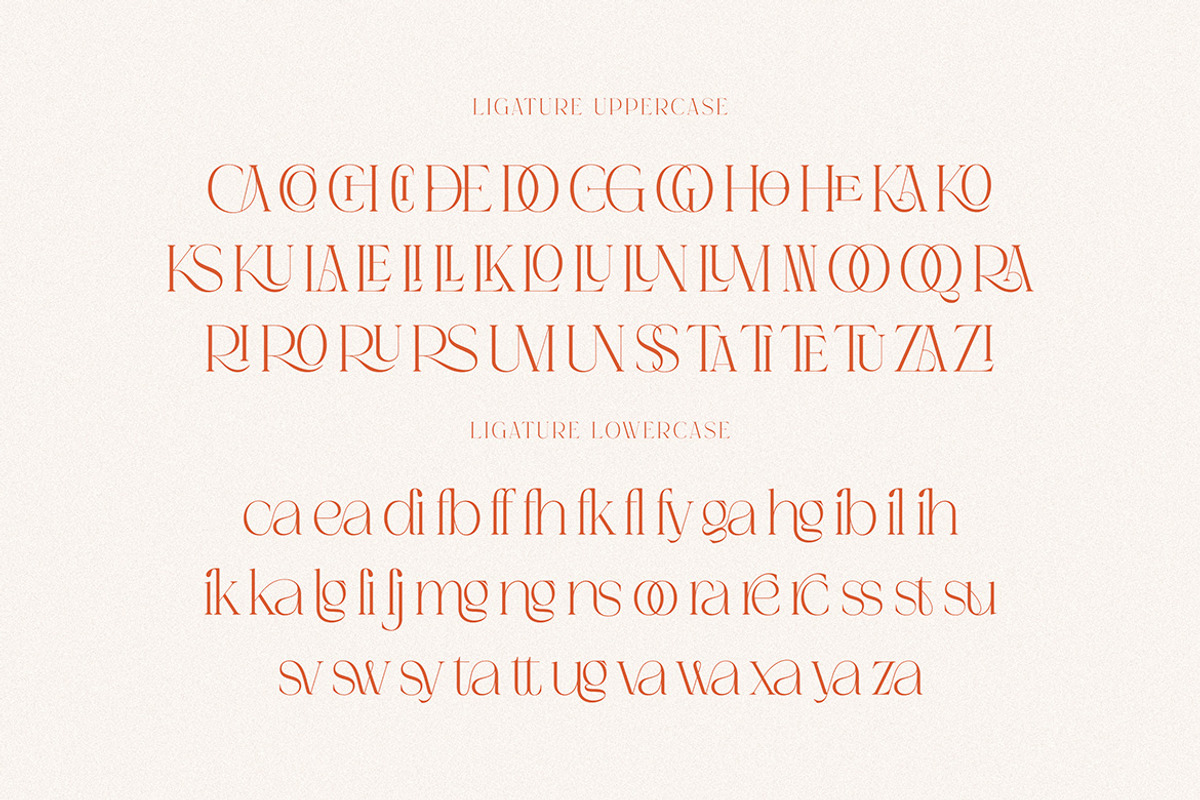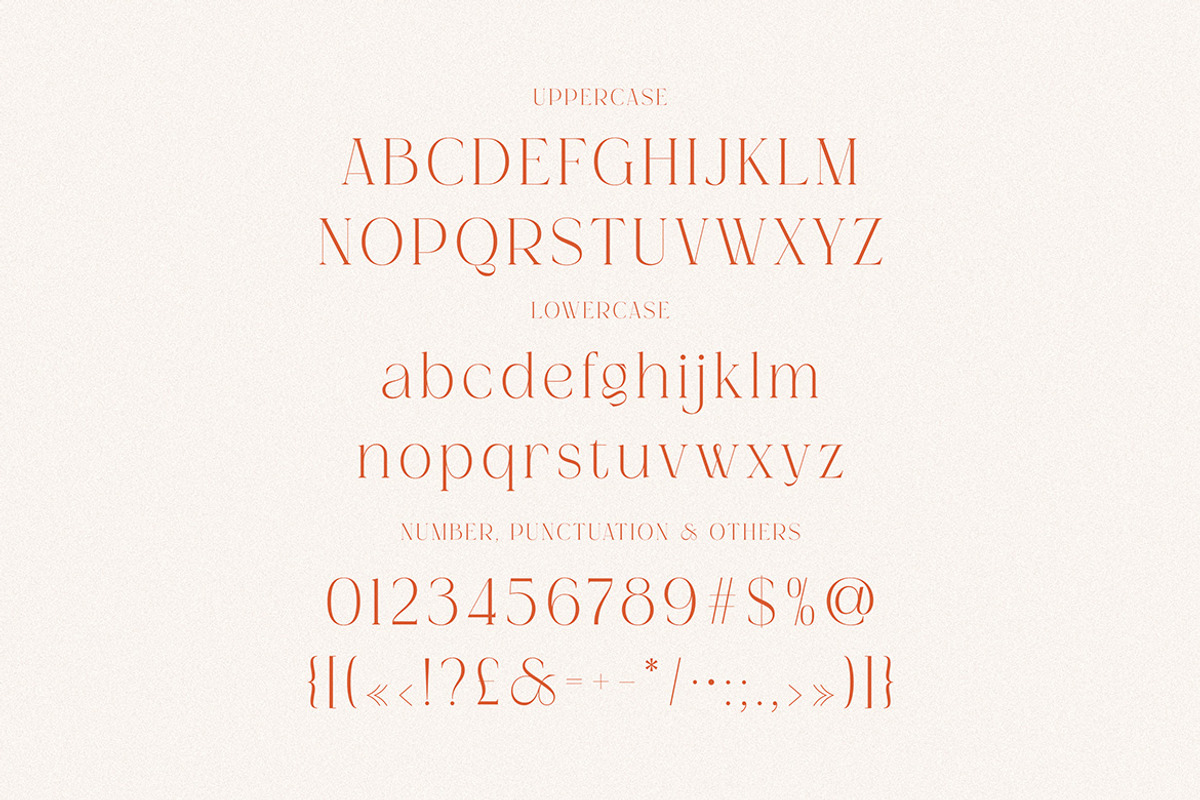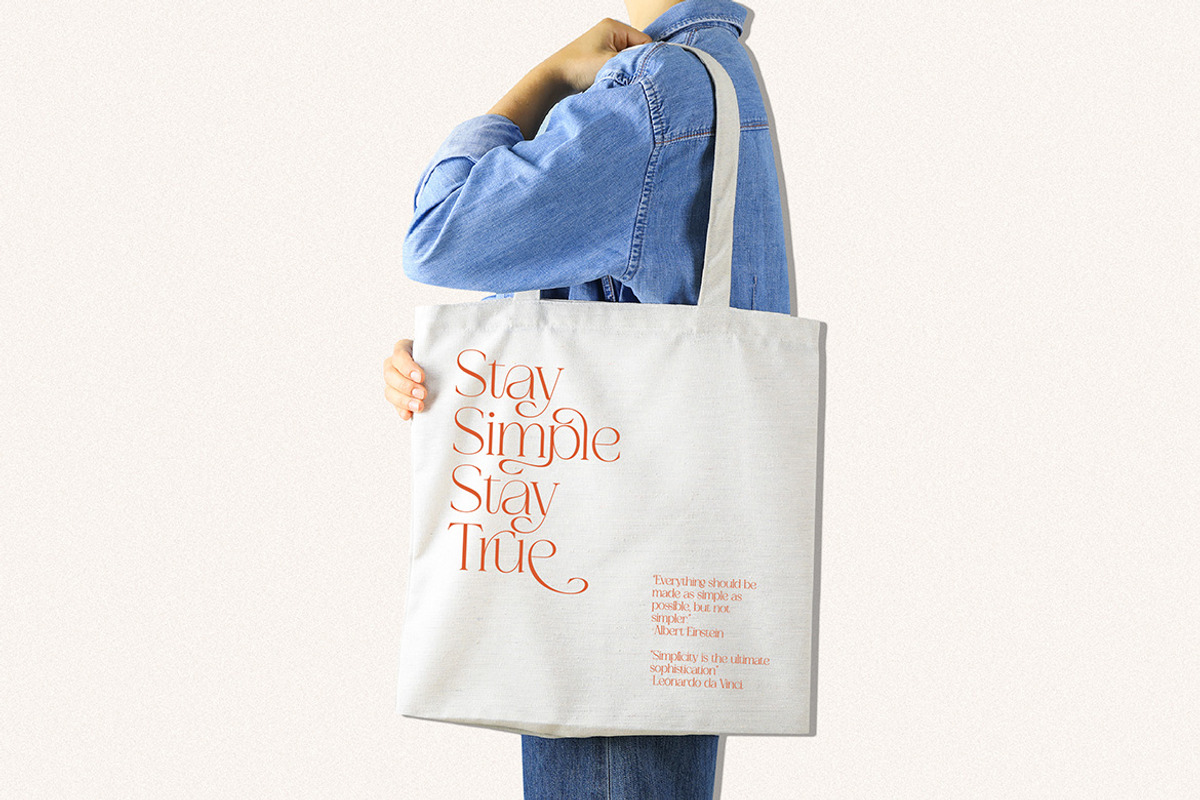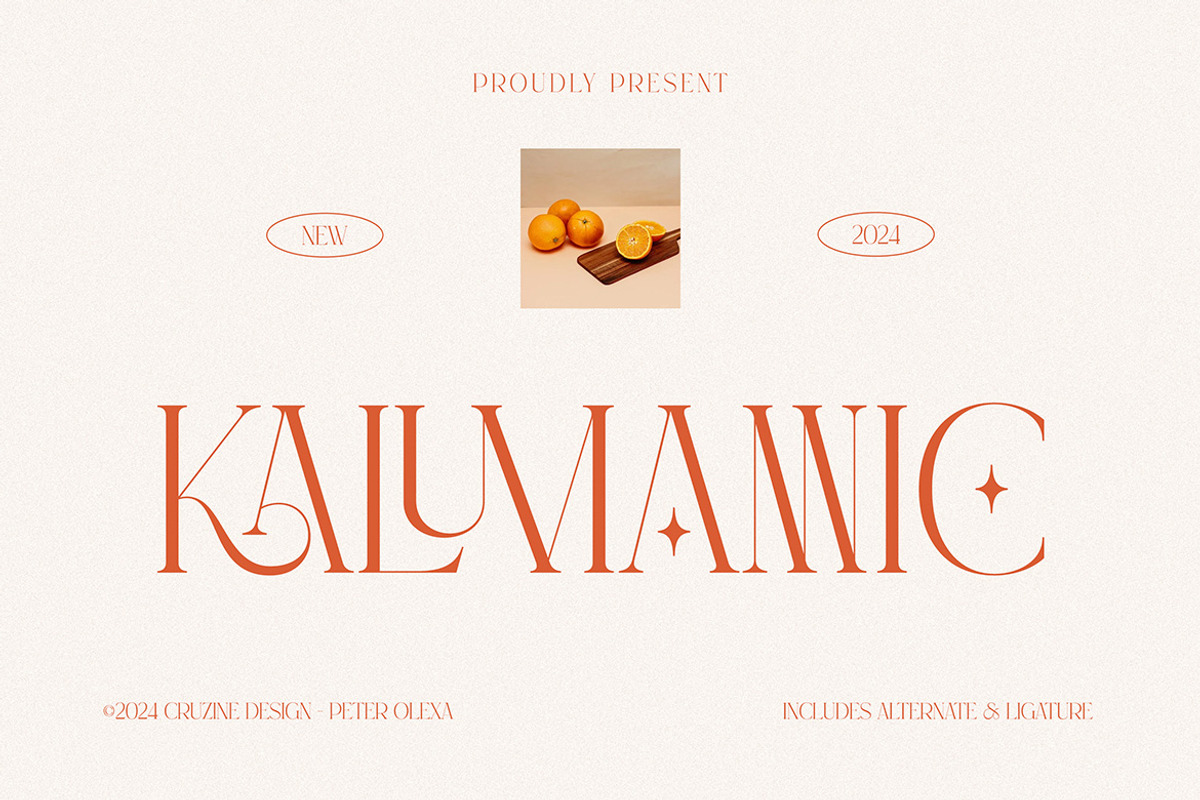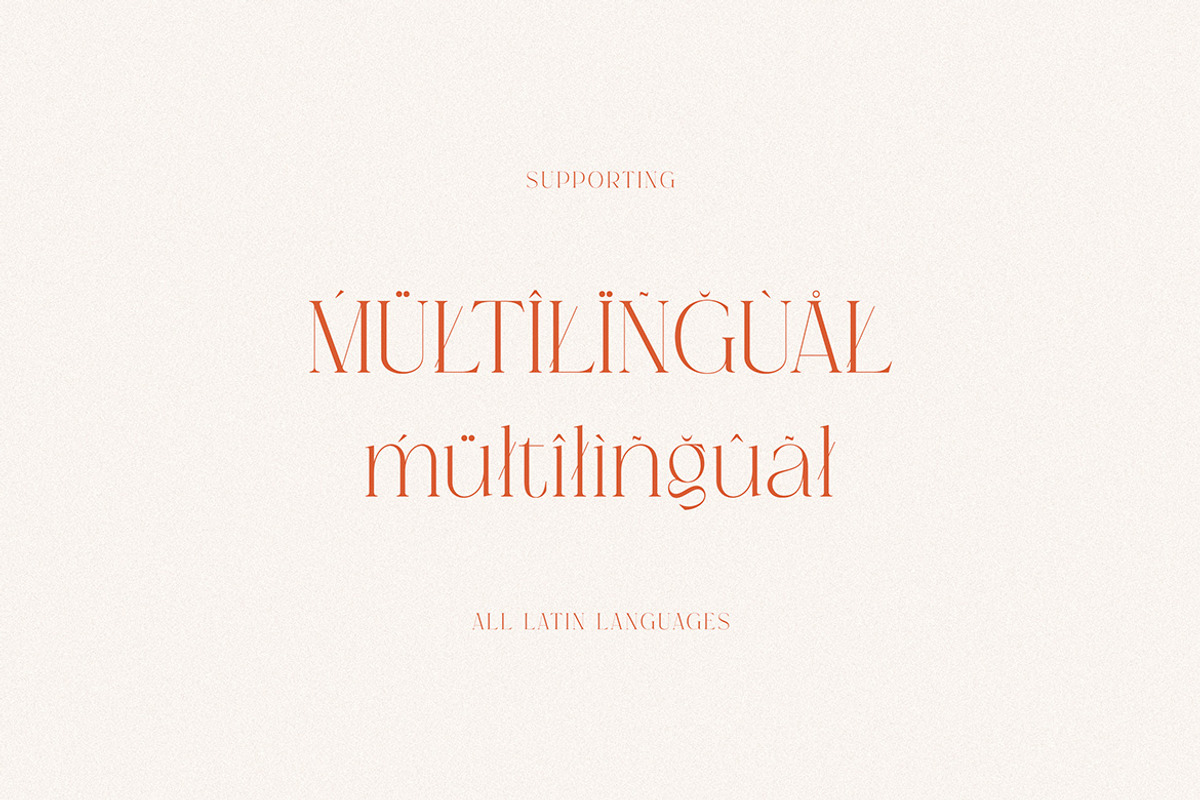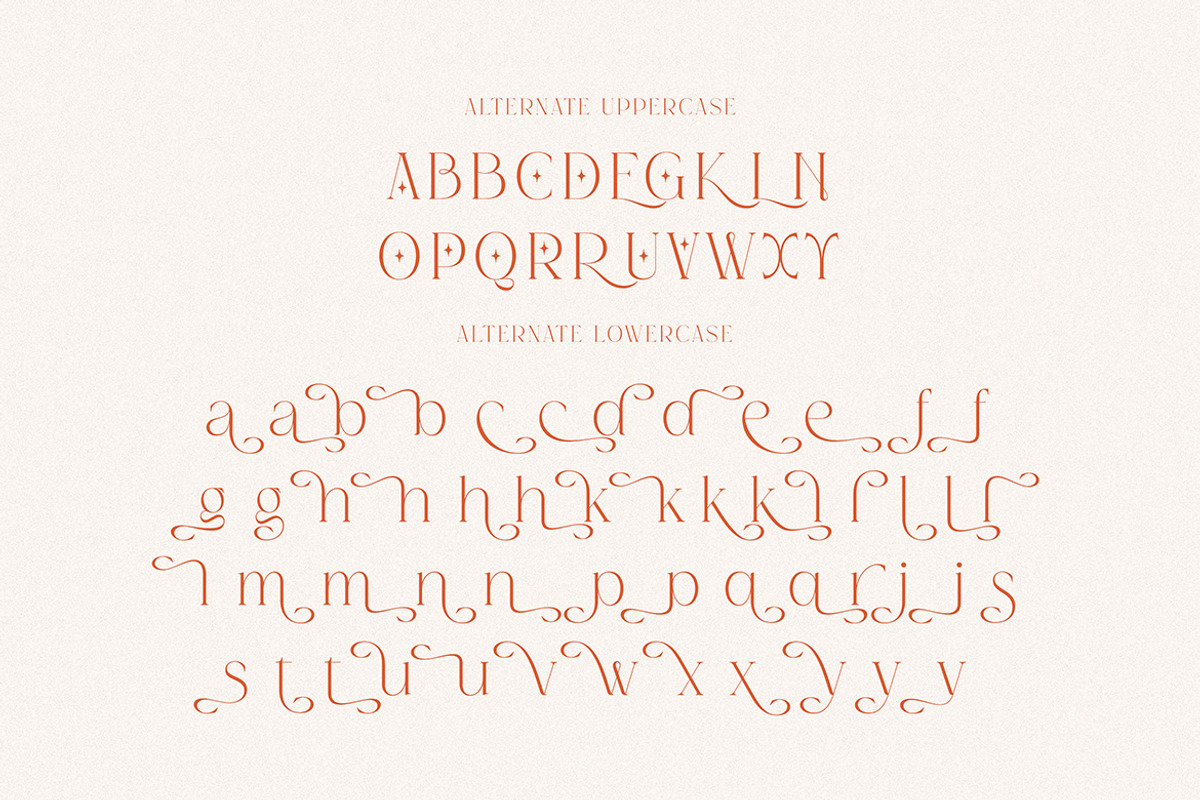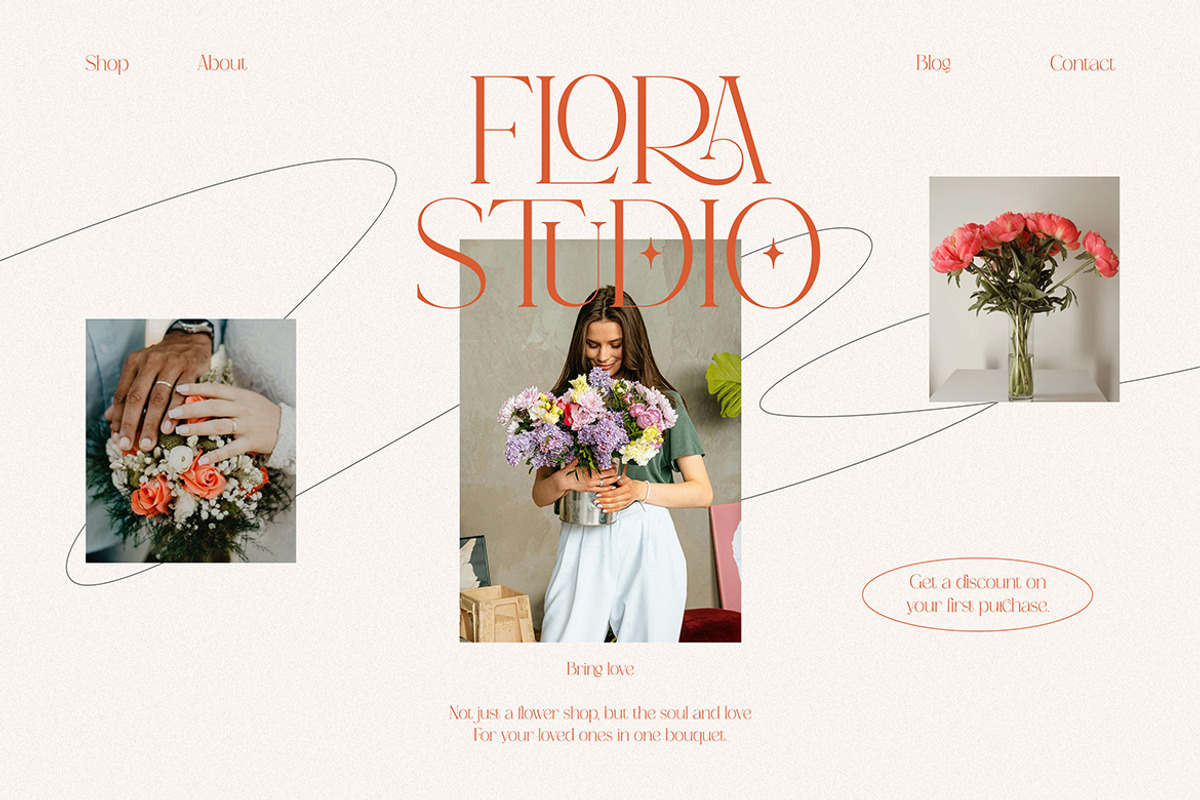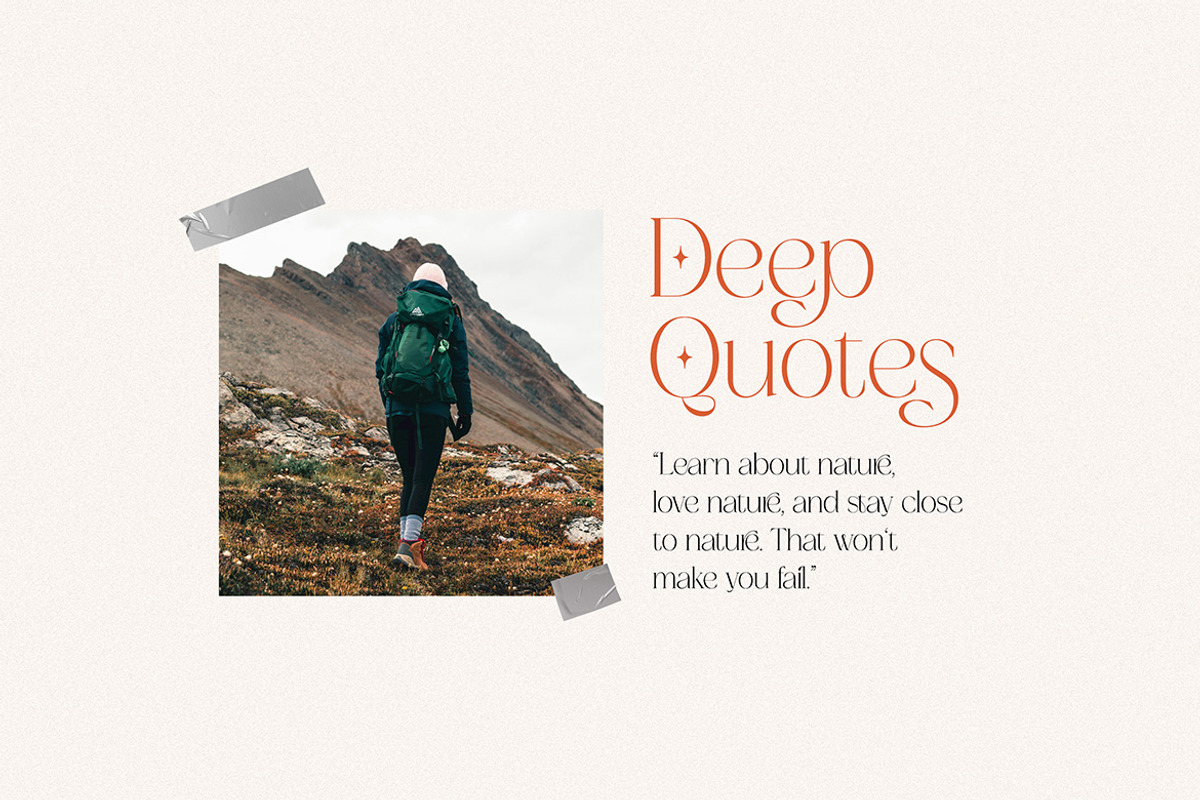
Kalumannic Luxury Serif
Trendy, elegant, luxury, creative & modern style serif font for your new fancy projects. Stylish, romantic and classic style on Kalumannic font will be great for any modern or classy branding project. Lot of alternates and ligatures will help you to create unique and original logo design or website header! Enjoy :)
- Alternate characters
- Lot of ligatures
- Great for modern branding projects!